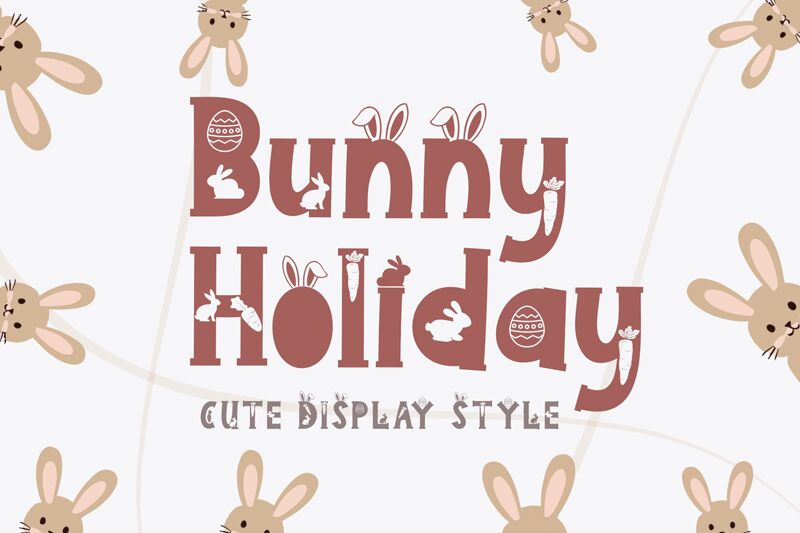
Bunny Holiday font by Yoga Letter is a decorative thematic font inspired by the happy holiday spirit. This free font was designed to artistically shape your festive projects with marks decorated with little cute rabbits on top of each. Whatever the meaning behind that choice, “bunny”-themed projects are not the only ones that can benefit from this wholesome font. The same light-hearted spirit will suit any project that needs a fun uplifting vibe.
Kids magazines, book covers, invitations to special occasions, and colorful posters are a few of the hundreds of projects you can prepare with Bunny Holiday. Adding more versatility to the applicability options, the character set covers basically all Latin-based languages. Not to forget that the font comes also with a few ligatures that some users will find handy.